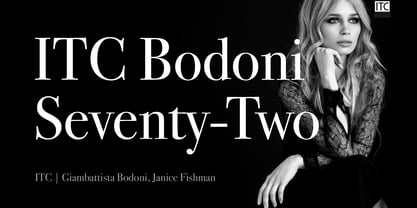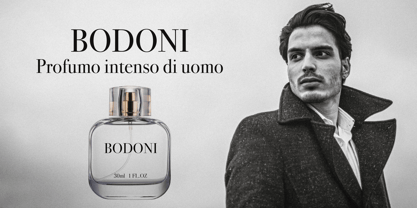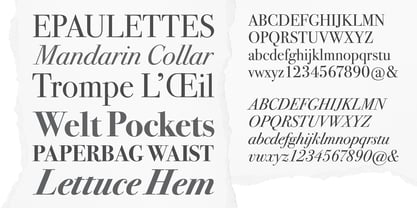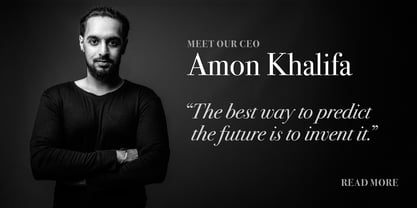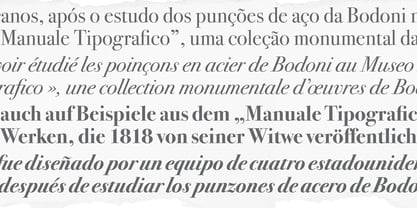
ITC Bodoni Seventytwo™
The ITC Bodoni Seventytwo Font Family was designed by Giambattista Bodoni, Janice Fishman and published by ITC. ITC Bodoni Seventytwo contains 4 styles and family package options. More about this family
Giambattista Bodoni (1740-1813) was called the King of Printers; he was a prolific type designer, a masterful engraver of punches and the most widely admired printer of his time. His books and typefaces were created during the 45 years he was the director of the fine press and publishing house of the Duke of Parma in Italy. He produced the best of what are known as modern" style types, basing them on the finest writing of his time. Modern types represented the ultimate typographic development of the late eighteenth and early nineteenth centuries. They have characteristics quite different from the types that preceded them; such as extreme vertical stress, fine hairlines contrasted by bold main strokes, and very subtle, almost non-existent bracketing of sharply defined hairline serifs. Bodoni saw this style as beautiful and harmonious-the natural result of writing done with a well-cut pen, and the look was fashionable and admired. Other punchcutters, such as the Didot family (1689-1853) in France, and J. E. Walbaum (1768-1839) in Germany made their own versions of the modern faces. Even though some nineteenth century critics turned up their noses and called such types shattering and chilly, today the Bodoni moderns are seen in much the same light as they were in his own time. When used with care, the Bodoni types are both romantic and elegant, with a presence that adds tasteful sparkle to headlines and advertising.
ITC Bodoni™ was designed by a team of four Americans, after studying Bodoni's steel punches at the Museo Bodoniana in Parma, Italy. They also referred to specimens from the "Manuale Tipografico," a monumental collection of Bodoni's work published by his widow in 1818. The designers sought to do a revival that reflected the subtleties of Bodoni's actual work. They produced three size-specific versions; ITC Bodoni Six for captions and footnotes, ITC Bodoni Twelve for text settings, and ITC Bodoni Seventytwo - a display design modeled on Bodoni's 72-point Papale design. ITC Bodoni includes regular, bold, italics, Old style Figures, small caps, and italic swash fonts. Sumner Stone created the ornaments based on those found in the "Manuale Tipografico." These lovely dingbats can be used as Bodoni did, to separate sections of text or simply accent a page layout or graphic design."